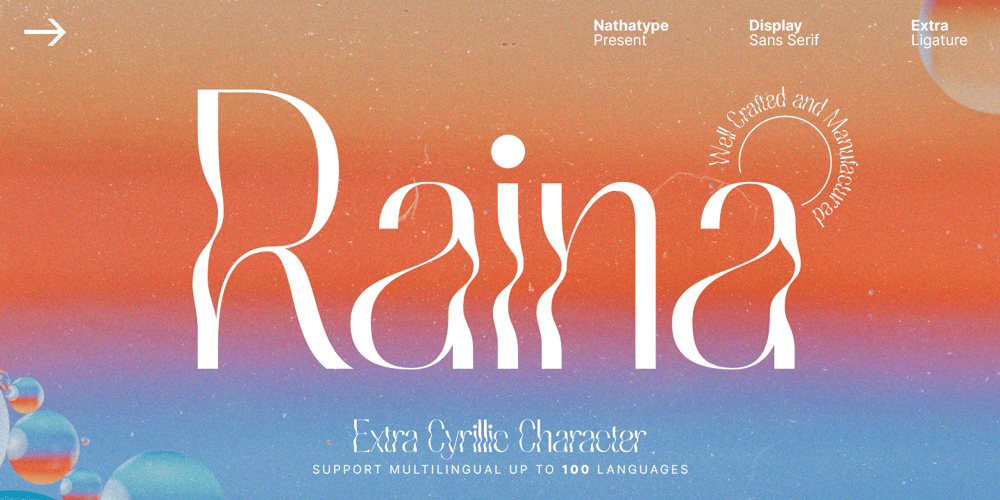
Raina
Raina font
Raina Font Family was designed by Donis Miftahudin and published by Nathatype. Raina contains 1 styles and family package options. Want to have a more unique design? Raina is a new way to show uniqueness and freedom in your design.Raina is one of the sans serif font combinations with the display font. Unlike the other solid, firm displays of sans serif font, Raina expresses more artistic, unique displays as a result of the display font’s character combinations. Its differing letter shapes from ordinary alphabets create uniqueness for this font because each letter has no straight lines, but indentations or cavities instead, and no tiny lines or hooks as a sans serif font character. With the unique shape of this font, use this font on bigger screens for a legibility reason.This font has included outstanding features to take your creativity and ideas to the next level.Features: Ligatures Multilingual Supports PUA Encoded Numerals and Punctuations Raina fits for various design projects, such as posters, banners, logos, book covers, quotes. , headings, printed products, merchandise, social media, etc. Find out more ways to use this font by taking a look at the font preview.Feel free to contact us if you require more information when you are experiencing a problem. Thank you. Happy designing.